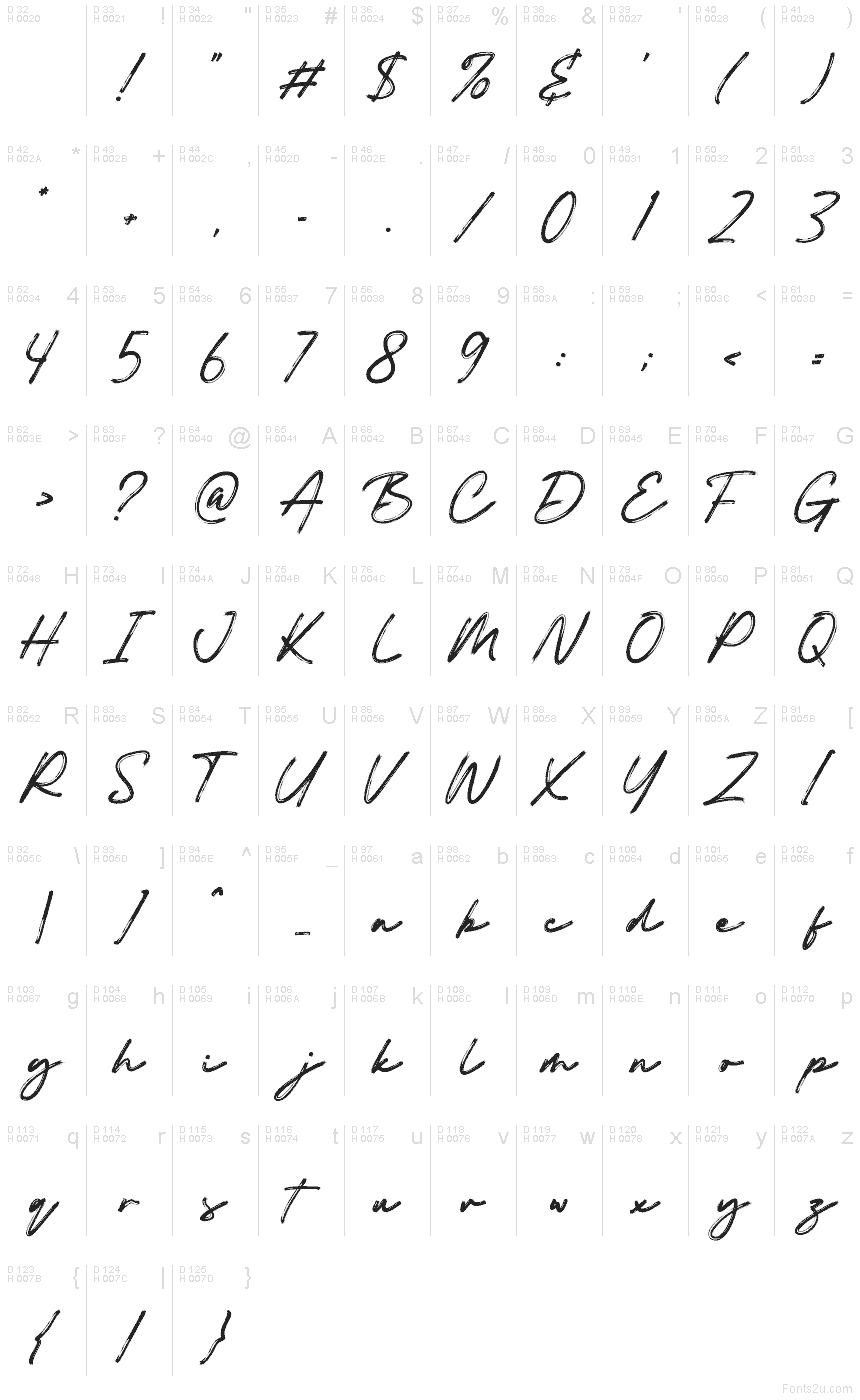
Million Feeling font is a script free brush font by RantautypeStudio, evocative of handwritten notes with an elegant and expressive presentation. It has been designed as a modern signature style set that surprisingly feels refined while still looking casual. Perfect for anyone looking to add bright gentle touches to their designs.